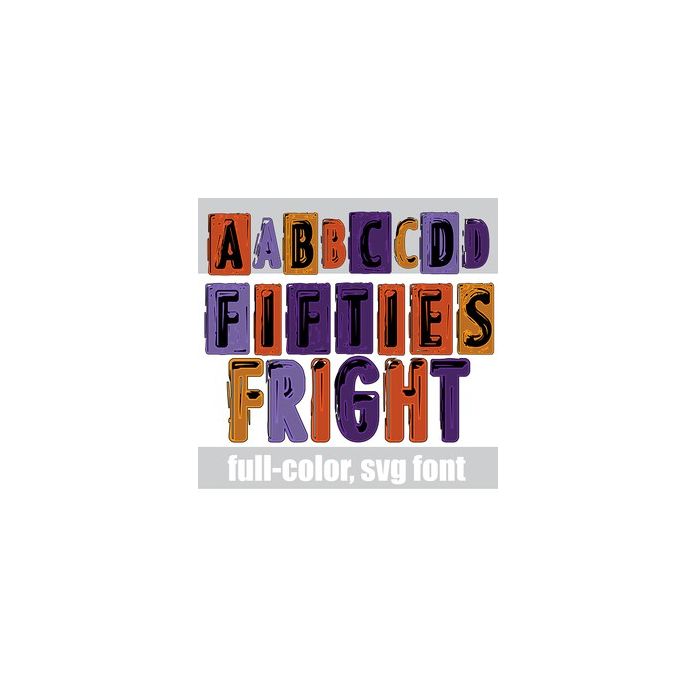
This full-color font features a metal imprint type font in a Halloween color palette. There is a an alt version w/ secondary colors available through your system's or Silhouette's glyph map.